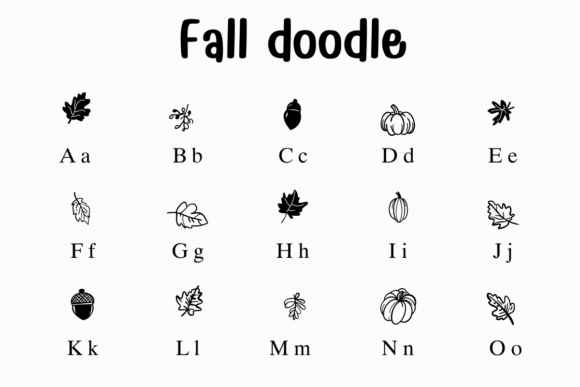
Fall Doodle Font: Add Cozy Autumn Vibes to Your Designs
As the seasons change, and autumn arrives with its cozy charm, designers and crafters are on the lookout for creative ways to infuse their work with the warmth and coziness of the season. One fantastic way to do this is by using the Fall Doodle Font, a hand-drawn dingbats font set that captures the essence of autumn in a unique and versatile way.
What is Fall Doodle Font?
Fall Doodle is a meticulously crafted font set that embodies the cozy energy of autumn. It’s designed to provide fast and easy typeable illustrations that can be used across various design projects, from planner stickers to posters. The font features clean vectors with rounded terminals and steady, low-contrast strokes, ensuring that the icons scale crisply and maintain their integrity, regardless of the size.
Key Features of Fall Doodle Font
- Hand-drawn dingbats font set: Fall Doodle offers a unique, hand-crafted approach to dingbats, providing a personal touch to your designs.
- Cozy autumn energy: The font is infused with the warmth and coziness of autumn, making it perfect for seasonal designs.
- Clean vectors: The icons are designed as clean vectors, ensuring crisp scaling from small planner stickers to large posters.
- Rounded terminals and low-contrast strokes: These features contribute to the font’s friendly and approachable feel.
- Variety of forms: The font includes a diverse palette of autumnal icons such as oaks, maples, ginkgo leaves, acorns, pumpkins, sprigs, and berries.
- Mix of outline and solid silhouettes: This allows for instant light-dark interplay and easy duotone layering, adding depth to your designs.
- Organic asymmetry and gentle bounce: These characteristics keep compositions friendly and approachable, avoiding a clip-art feel.
- Mapped across the basic alphabet: For quick and easy keyboard access, making it effortless to build borders, badges, and repeat patterns.
Using Fall Doodle Font in Your Designs
The versatility of Fall Doodle Font makes it an excellent choice for a wide range of design projects. Here are some ideas on how to make the most of this fantastic font:
Design Ideas with Fall Doodle Font
- Planner Stickers: Add a touch of autumn to your planners with the font’s variety of seasonal icons.
- Posters: Create eye-catching posters for autumn events or promotions using the font’s bold and clear vectors.
- Branding: Recolor the font to match your brand tones and use it to create unique badges, borders, or icons.
- Decals: Convert the font to strokes to create decals that can be used on various products.
- Layering: Stack filled and outline glyphs to add depth and dimension to your designs.
- Pairing: Combine Fall Doodle Font with a chunky sans or cozy script for warm and inviting seasonal layouts.
Why Choose Fall Doodle Font?
With so many fonts available, why should Fall Doodle Font be your go-to choice for autumn designs? Here are a few compelling reasons:
Reasons to Choose Fall Doodle Font
- Unique and Hand-crafted: The font offers a personal touch that sets it apart from more generic fonts.
- Versatile: It can be used across a variety of projects, from small stickers to large posters.
- Easy to Use: Mapped across the basic alphabet for quick access and easy integration into your designs.
- Customizable: Easily recolor to match your brand tones or convert to strokes for decals.
- Seasonal: Perfectly captures the cozy and warm vibes of autumn, making it ideal for seasonal designs.
Fall Doodle Font is a remarkable addition to any designer’s toolkit, especially those looking to infuse their work with the cozy and warm energy of autumn. Its unique, hand-crafted approach, combined with its versatility and ease of use, makes it an excellent choice for a wide range of design projects. Whether you’re creating planner stickers, posters, or any other design that could benefit from a seasonal touch, Fall Doodle Font is sure to meet your needs and exceed your expectations.
So, why wait? Embrace the cozy vibes of autumn and elevate your designs with Fall Doodle Font. Its ability to add a personal and seasonal touch to your work will undoubtedly set your designs apart and make them more engaging to your audience.